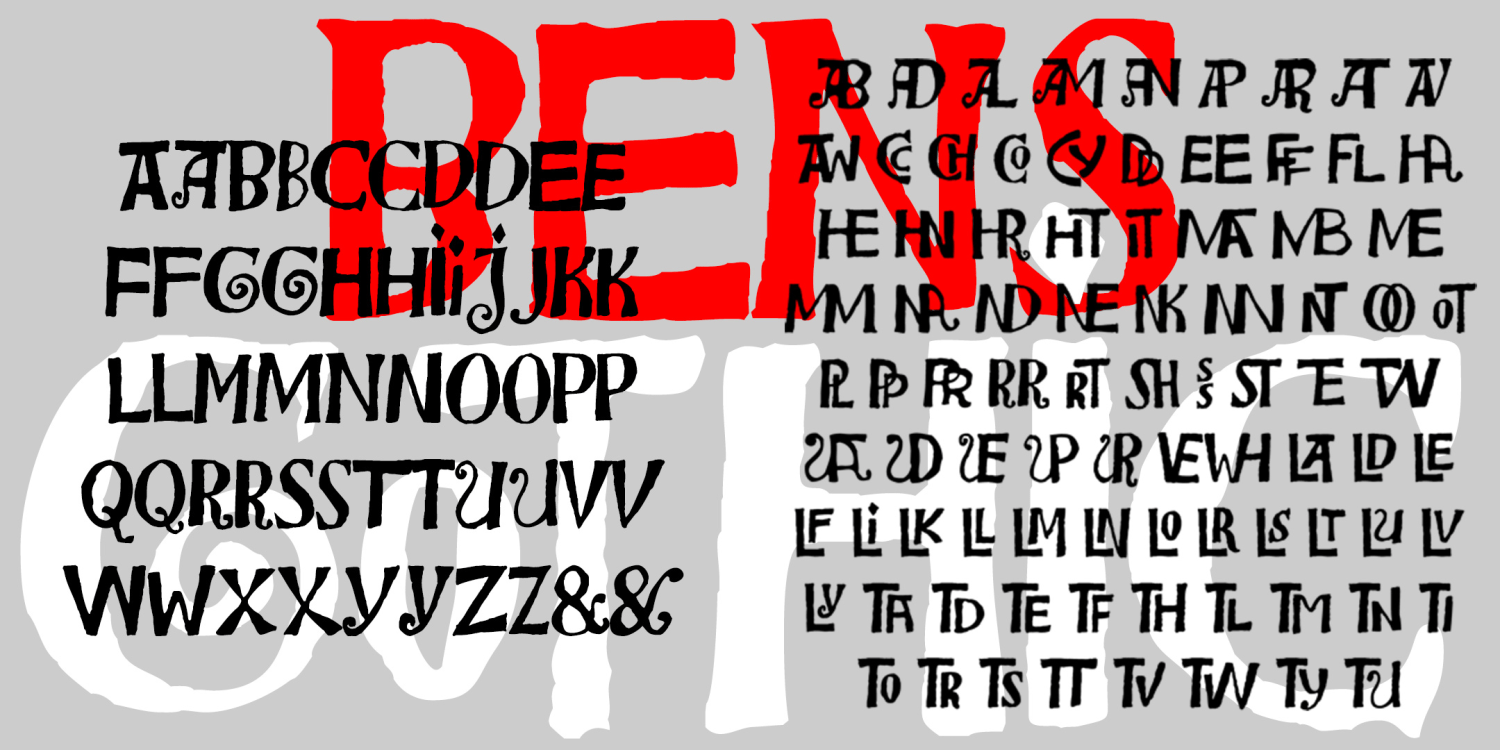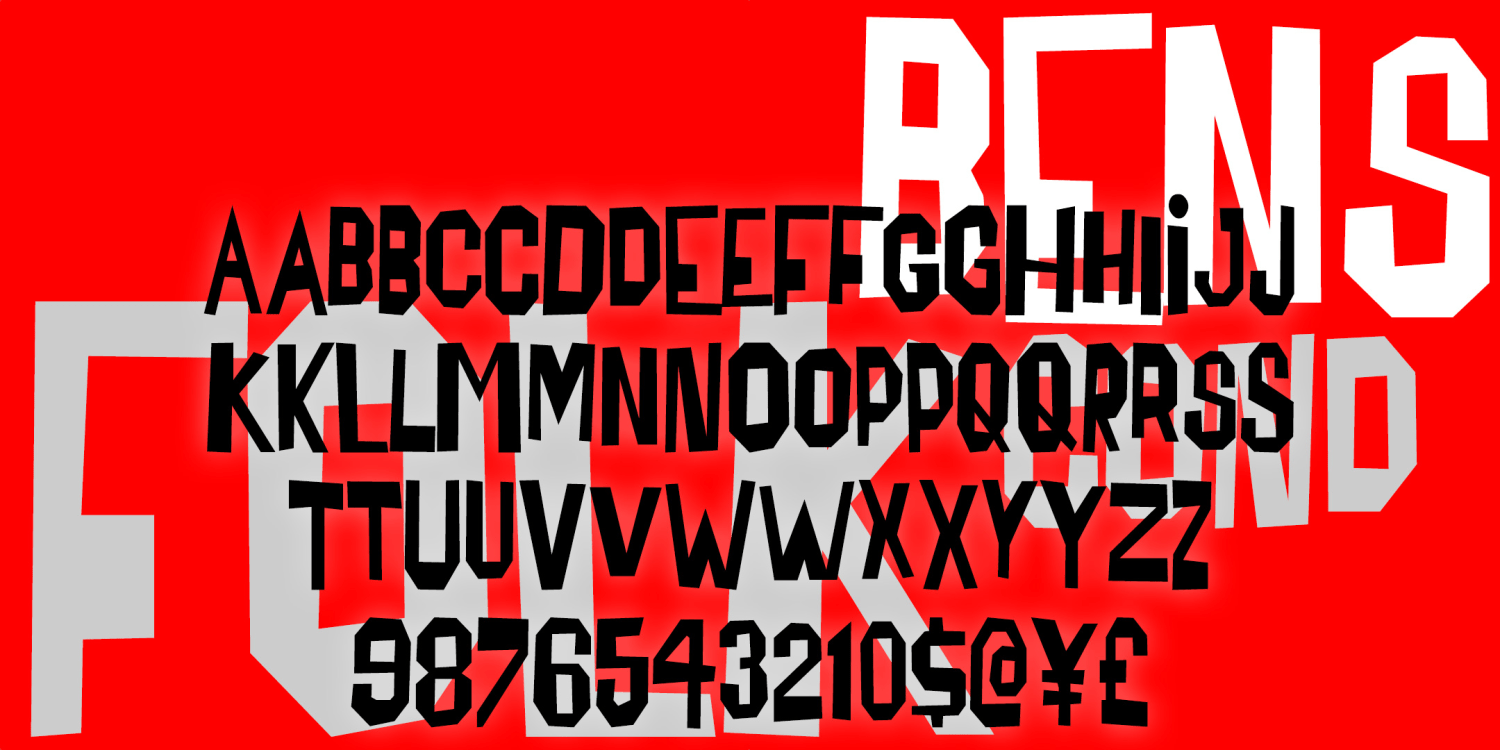
Bensfonts Family
Font Bundle by Harold's Fonts
The BENFONTS were inspired by the work of the artist Ben Shahn. He was a political activist, a painter, and a calligrapher, among many talents.
One of the lettering styles Shahn used was derived from the work of amateur sign painters, which in turn inspired my BENSFOLK font.
BENSGOTHIC, with its fanciful ligatures, was inspired by another style of his calligraphy, suggesting inscriptional capitals like those of medieval manuscripts or Byzantine mosaics.